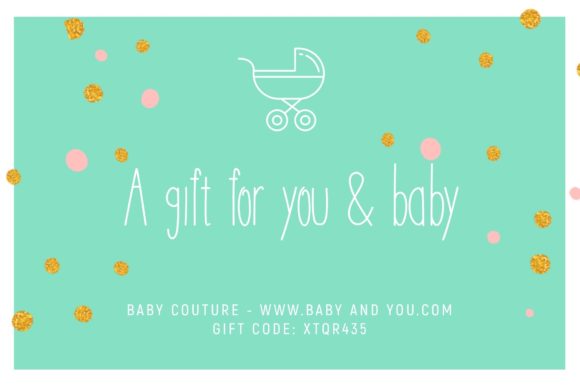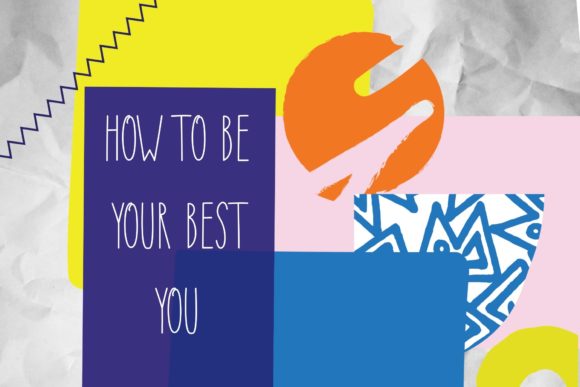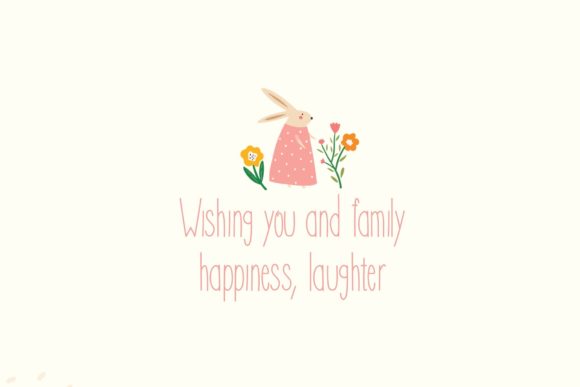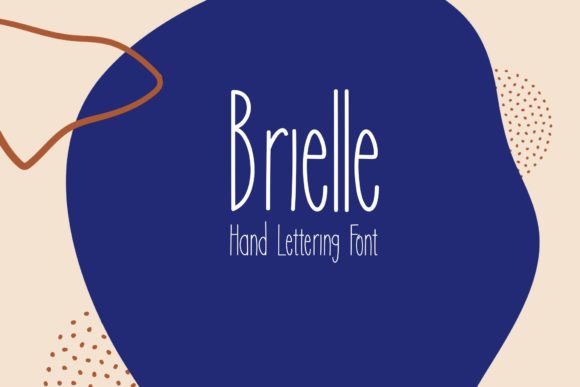
Brielle Font: The Perfect Handwritten Font for Chalkboard Quotes and Teaching Materials
Are you a designer or crafter looking for a font that can add a personal and realistic feel to your designs? Look no further than the Brielle font! This cute and simple lettered handwritten font is perfect for creating chalkboard quotes, teaching materials, and other designs that require a touch of authenticity.
What is Brielle Font?
Brielle is a carefully crafted handwritten font that mimics the look of chalkboard writing. Its authentic and rustic feel makes it ideal for creating designs that require a personal touch. The font is highly legible and can be used for a variety of purposes, from creating chalkboard quotes to designing teaching materials.
Key Features of Brielle Font
• Cute and Simple Design: Brielle font has a cute and simple design that makes it perfect for creating designs that require a touch of whimsy.
• Handwritten Style: The font has a handwritten style that gives it an authentic and personal feel.
• Chalkboard Look: The font mimics the look of chalkboard writing, making it perfect for creating chalkboard quotes and other designs.
• Highly Legible: The font is highly legible, making it easy to read and understand.
Uses of Brielle Font
Brielle font can be used for a variety of purposes, including:
• Chalkboard Quotes: The font is perfect for creating chalkboard quotes that require a personal and authentic touch.
• Teaching Materials: The font can be used to create teaching materials, such as worksheets, posters, and presentations.
• Design Projects: The font can be used for a variety of design projects, including brochures, flyers, and social media graphics.
• Crafting Projects: The font can be used for crafting projects, such as making signs, banners, and other DIY projects.
Benefits of Using Brielle Font
There are several benefits to using Brielle font, including:
• Unique and Authentic Look: The font has a unique and authentic look that sets it apart from other fonts.
• Easy to Read: The font is highly legible and easy to read, making it perfect for creating designs that require a clear and concise message.
• Versatile: The font can be used for a variety of purposes, from creating chalkboard quotes to designing teaching materials.
In conclusion, Brielle font is a cute and simple lettered handwritten font that is perfect for creating chalkboard quotes, teaching materials, and other designs that require a personal and authentic touch. Its unique and authentic look, ease of use, and versatility make it a great addition to any designer’s or crafter’s font library.